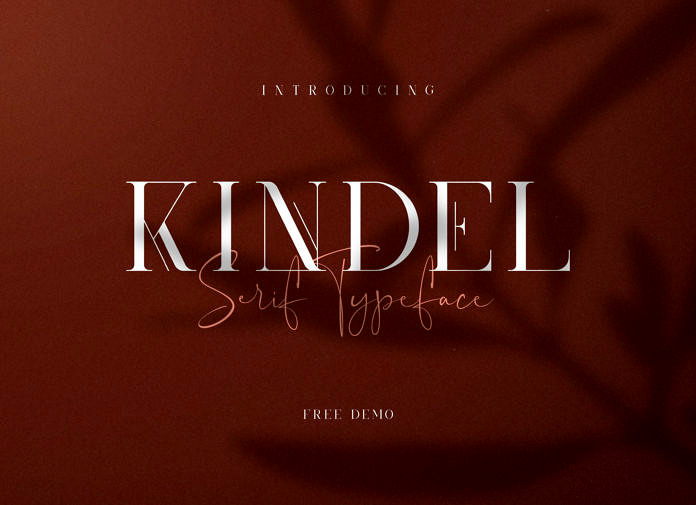
Kindel Serif Font Free Demo
For today’s freebie we have a free demo of Kindel – Serif Typeface designed by VPcreativeshop.
A modern and sophisticated typeface with total of 4 font styles, loaded with ligature glyphs and multilingual support. Perfect for branding projects, home-ware designs, product packaging, magazine headers – or simply as a stylish text overlay to any background image.